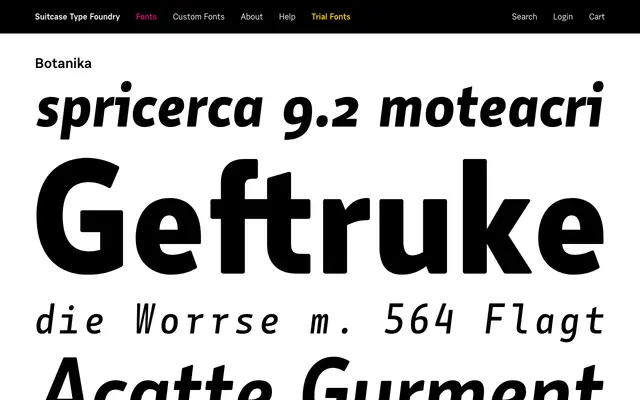
A humanist sans from Suitcase Type Foundry with an organic character implied by its botanical naming.
Released by Prague-based Suitcase Type Foundry, Botanika takes its cues from the natural world, suggesting a humanist sans with warmth and gentle irregularity. The foundry page offers limited detail on the full weight range or character set, but the name and foundry context point toward a face suited to editorial, packaging or brand work where a softer sans is needed. Suitcase Type Foundry have a consistent track record with Central European humanist design.
The name Botanika suggests an organic, nature-inflected humanist character typical of contemporary Central European sans-serif design; without further detail, a humanist sans classification is the most appropriate fit.